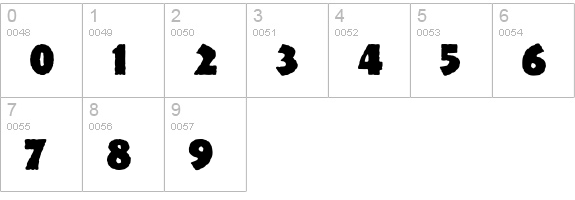
Mesozoic Font Details
Mesozoic font is a stunning typeface that captures the essence of prehistoric times with its rugged and ancient-inspired design. This unique font features intricate details and bold, dynamic letterforms that evoke a sense of adventure and exploration. Mesozoic font is perfect for projects that require a touch of historical flair or a bold statement. Best of all, Mesozoic font is completely free to download at FontsMarket.com, making it accessible to anyone looking to add a touch of prehistoric charm to their designs. Whether you're creating posters, logos, or branding materials, Mesozoic font is sure to make a powerful impression and transport your audience to a bygone era. Download Mesozoic font today and unleash your creativity with this captivating typeface.